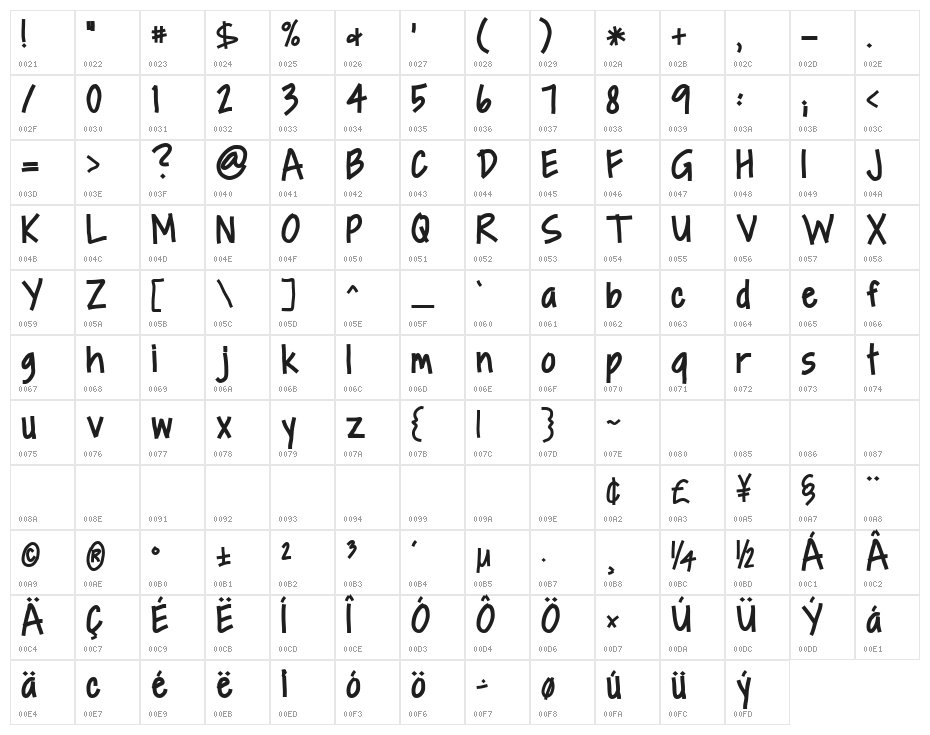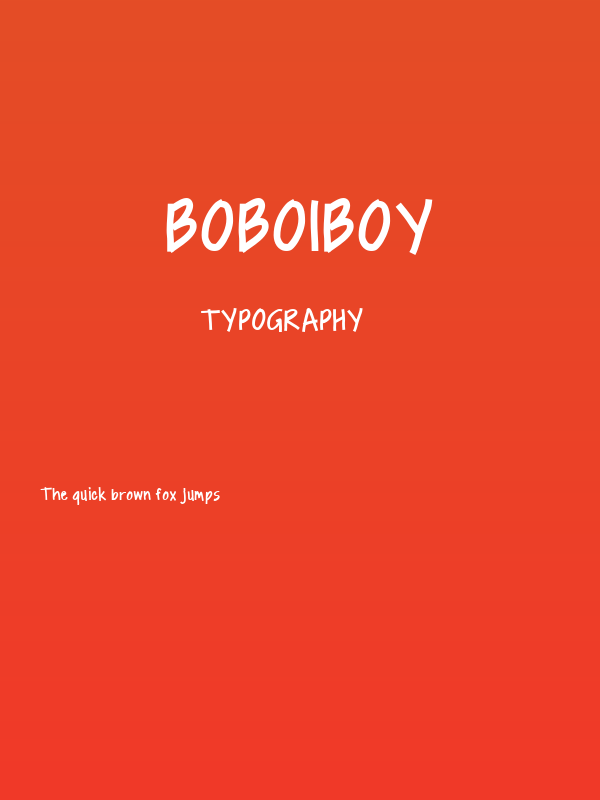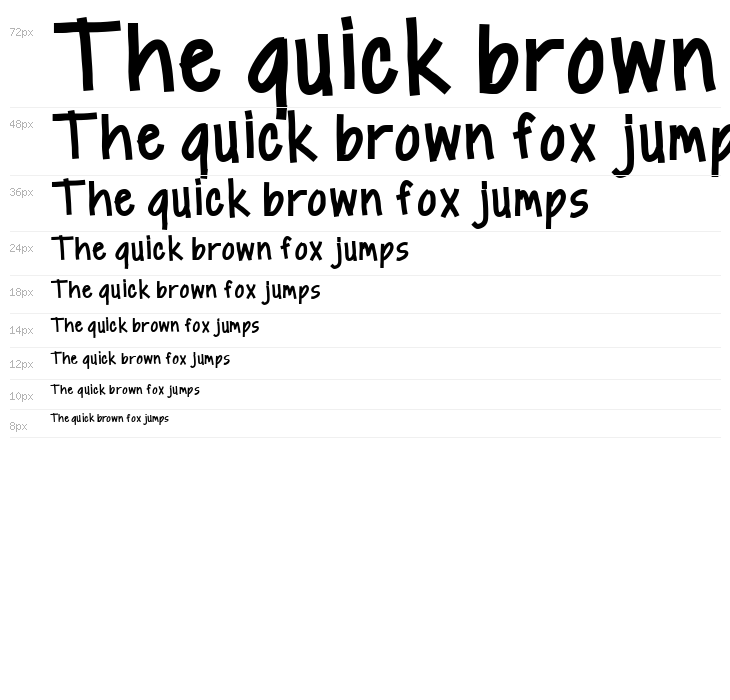
Boboiboy Font
Boboiboy Description
This font exhibits a playful and energetic style, characterized by its bold and slightly irregular letterforms. The strokes are thick and consistent, giving it a strong presence on the page. The characters have a hand-drawn feel, with slight variations in angle and curvature that add to its informal and lively appearance. The uppercase and lowercase letters maintain a cohesive look, while the numbers and special characters complement the overall style. This font is ideal for projects that require a fun and engaging visual element.
| Proposed Projects | Perfect for children's books, comic strips, playful branding, and posters. |